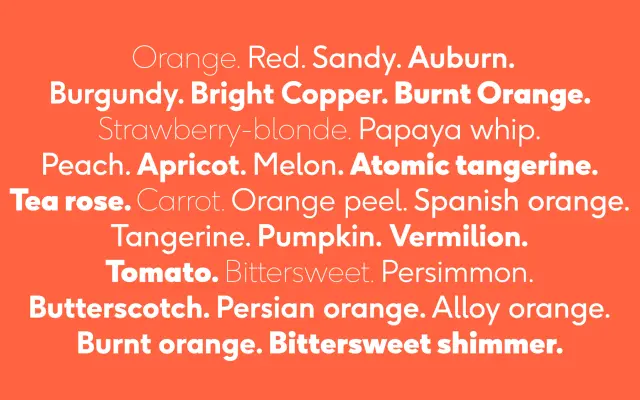
F37 Ginger
F37 Foundry · Rick Banks, Shaqa Bovand, Ryan Williamson · 2013
F37 Ginger specimen from F37 Foundry
F37's bestselling geometric sans, drawn with near-circular counters in the lineage of Futura and Avant Garde Gothic, used by Google, Pepsi and Barbour.
A geometric sans by Rick Banks, Shaqa Bovand and Ryan Williamson that has become F37's calling card since its 2013 release. Near-circular counters and clean geometric shapes make it a regular pick for logos and headlines, with adopters including Google, Pepsi and Barbour. Six weights from Thin to Black with matching italics in twelve styles, drawn under the influence of Paul Renner's Futura and Herb Lubalin's Avant Garde Gothic. The wider family extends into Rounded, Soft, Mono, Mono Rounded and Mono Soft, plus Cyrillic, Greek and Arabic scripts.
F37 classifies Ginger as a geometric sans-serif with unusual near-circular counters, drawn under the influence of Paul Renner's Futura and Herb Lubalin's Avant Garde Gothic, and used by Google, Pepsi and Barbour. Supports Latin Extended, Cyrillic, Greek and Arabic through sibling families.